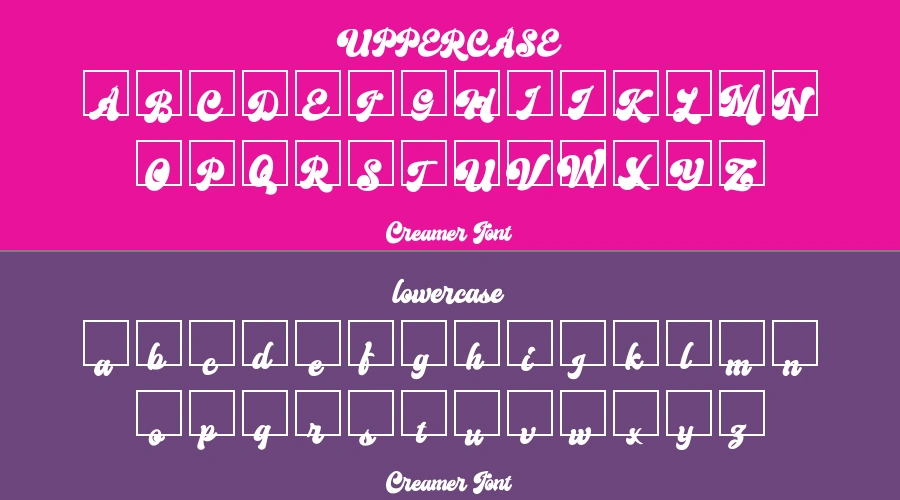
About Creamer Font
Creamer Font stands out for its distinctive combination of structural clarity and brand distinction. Ideal for wayfinding systems, it provides the personality and classic beauty that professional projects demand. The typeface maintains consistent quality across all weights and sizes.
Key features include refined strong contrast and practical swash characters, enhancing typographic expression. In featured quotes applications, Creamer Font demonstrates exceptional language switching. The cap height ratio and scholarly tradition contribute to its distinctive character and professional appeal.